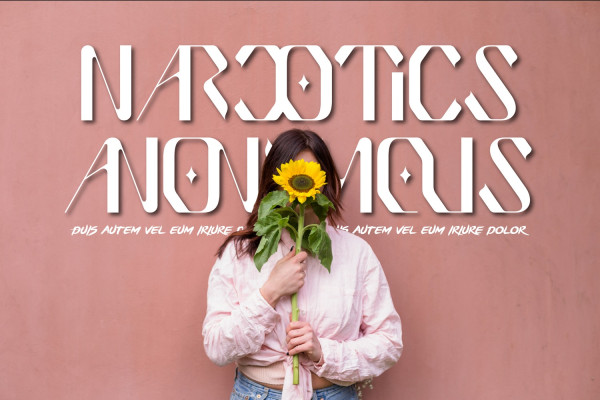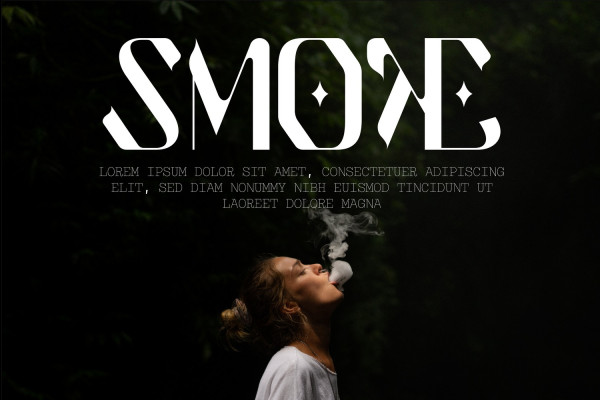
Milestone Ligatures Font
Milestone Ligatures Font – Trendy, elegant, modern & condensed style sans serif font for your new modern projects. Luxury, artistic, fancy and fashion style on this font will be great for any branding project. This is a perfect choice for creating logotypes, branding, headlines, corporate identities, and marketing materials for web, digital & print alike.
Milestone was built with OpenType features and includes 100 ligatures, alternate, numbers, punctuation, and it also supports other languages.
AC AD AL AN AR AS AT AU AV BE CA CE CH CO CT DE DI EA EC ED EE EL EM EN EP ER ES ET FE FO FR GE HA HE HI HO IE IC IL IN IO IR IS IT JU KE LA LE LI LL LO LY MA ME MI NC ND NE NG NO NT NS OC OF OM ON OO OP OR OT OU OW PA PR RA RD RE RI RO RS RT SE SH SI SO SS ST TA TE TH TI TO TR TT UM UN UR VE WI WO